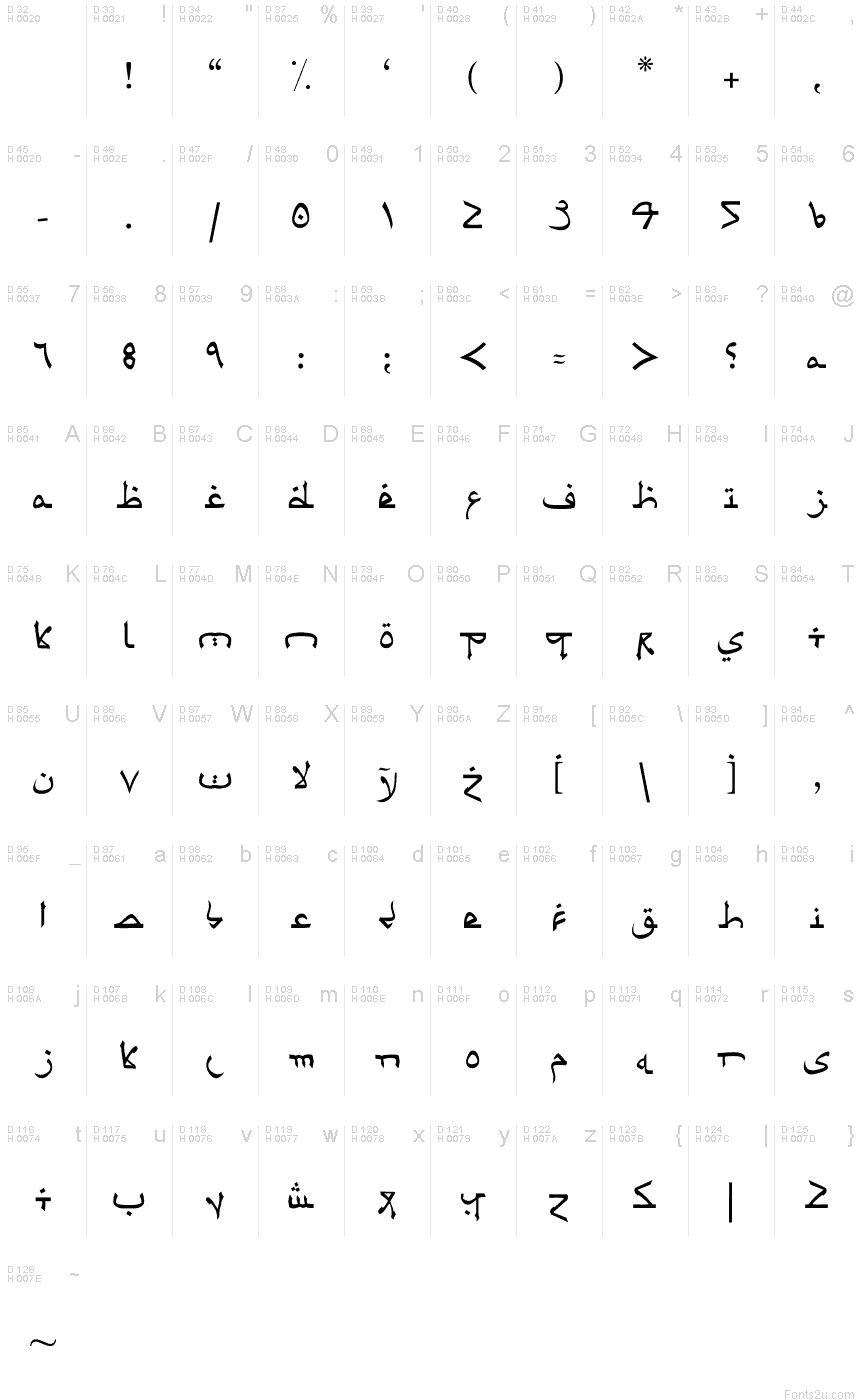
Psuedo Saudi
Psuedo Saudi by Iconian Fonts is a free pseudo-Arabic display font with a sharp, calligraphic silhouette. The letters lean on sweeping curves, hooked ends, and long horizontal strokes that echo hand-drawn Arabic signage, giving the font a stylized regional flavor rather than a strict traditional text feel.
It fits best where the lettering can carry atmosphere - on posters, game titles, music artwork, event flyers, and themed branding that wants a cinematic Middle Eastern cue. As a free font, it also works well for short headlines, logo sketches, and title cards, since those extended strokes and tapered turns do most of the visual work fast.